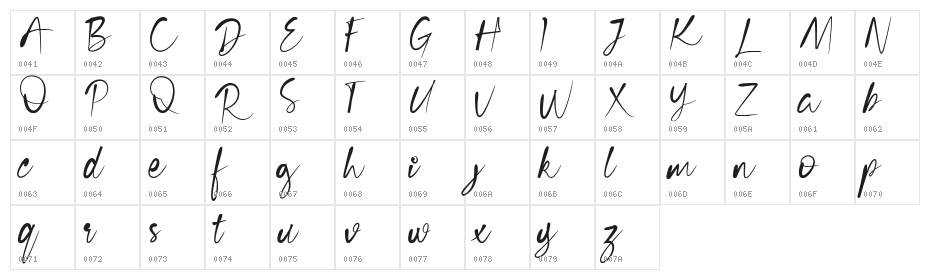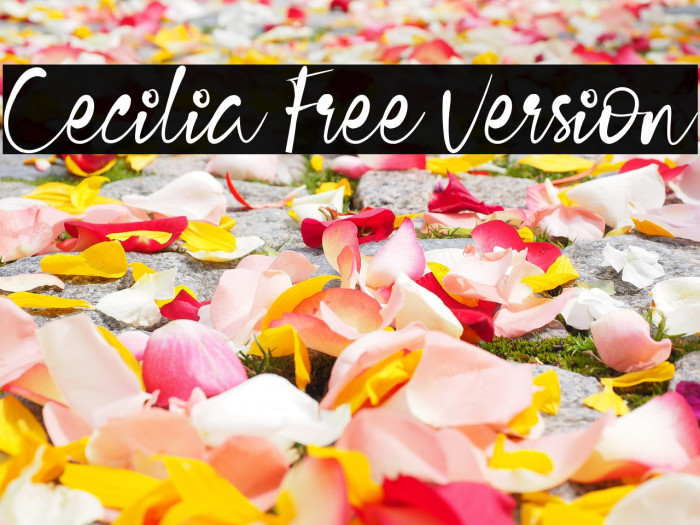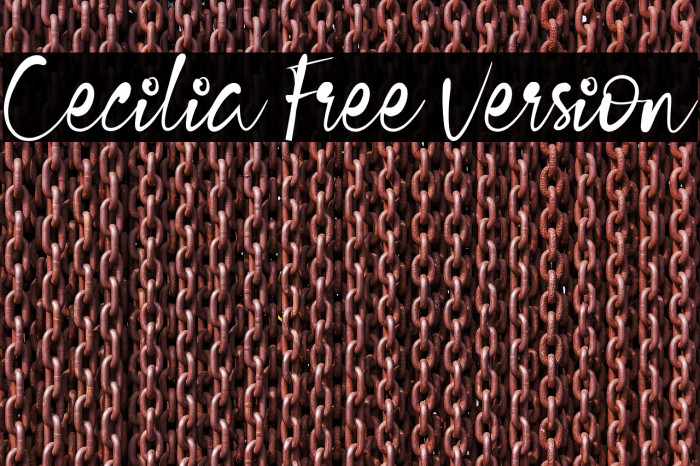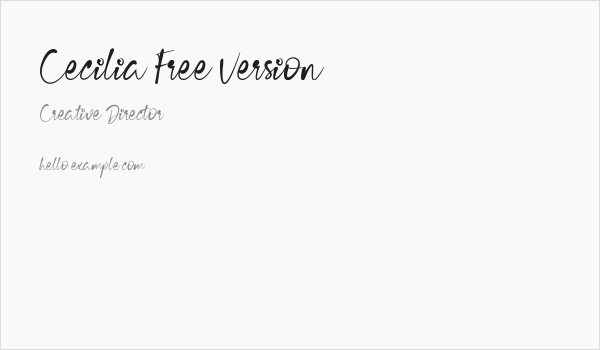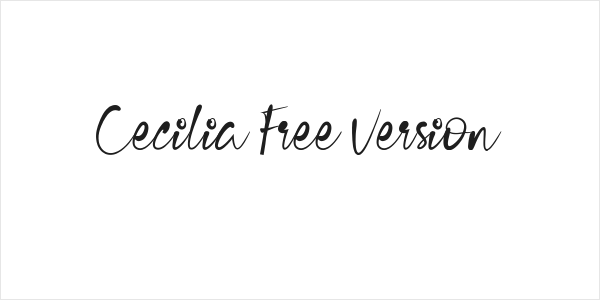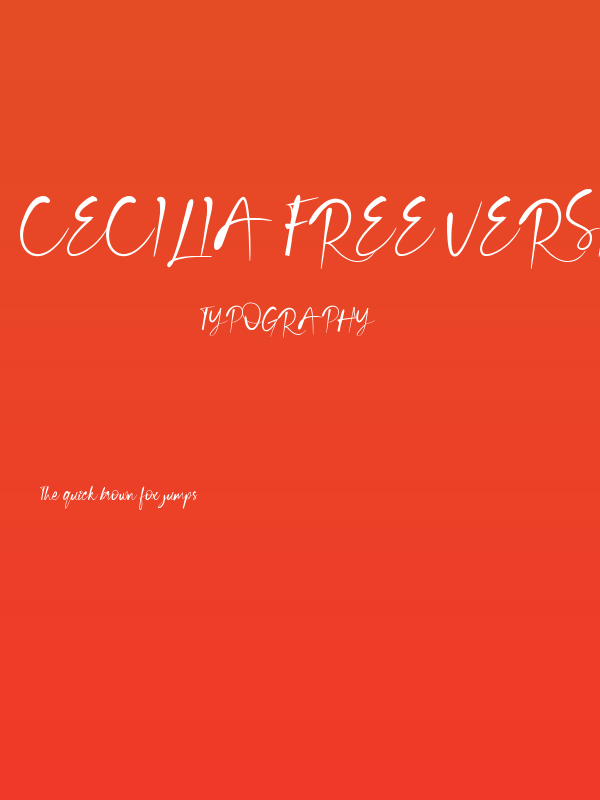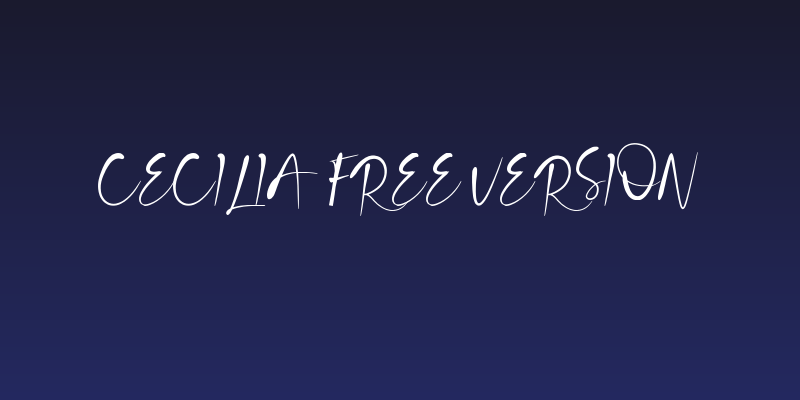
Cecilia Free Version Font
Cecilia Free Version Description
This font exhibits a fluid and elegant handwritten style, characterized by its smooth curves and flowing lines. The uppercase letters are bold and expressive, while the lowercase letters maintain a consistent, graceful appearance. The numbers and special characters complement the alphabet with a similar aesthetic, ensuring a cohesive look across all text. The overall design is both artistic and legible, making it suitable for creative projects that require a personal touch.
| Proposed Projects | Ideal for wedding invitations, greeting cards, personal branding, and artistic projects. |